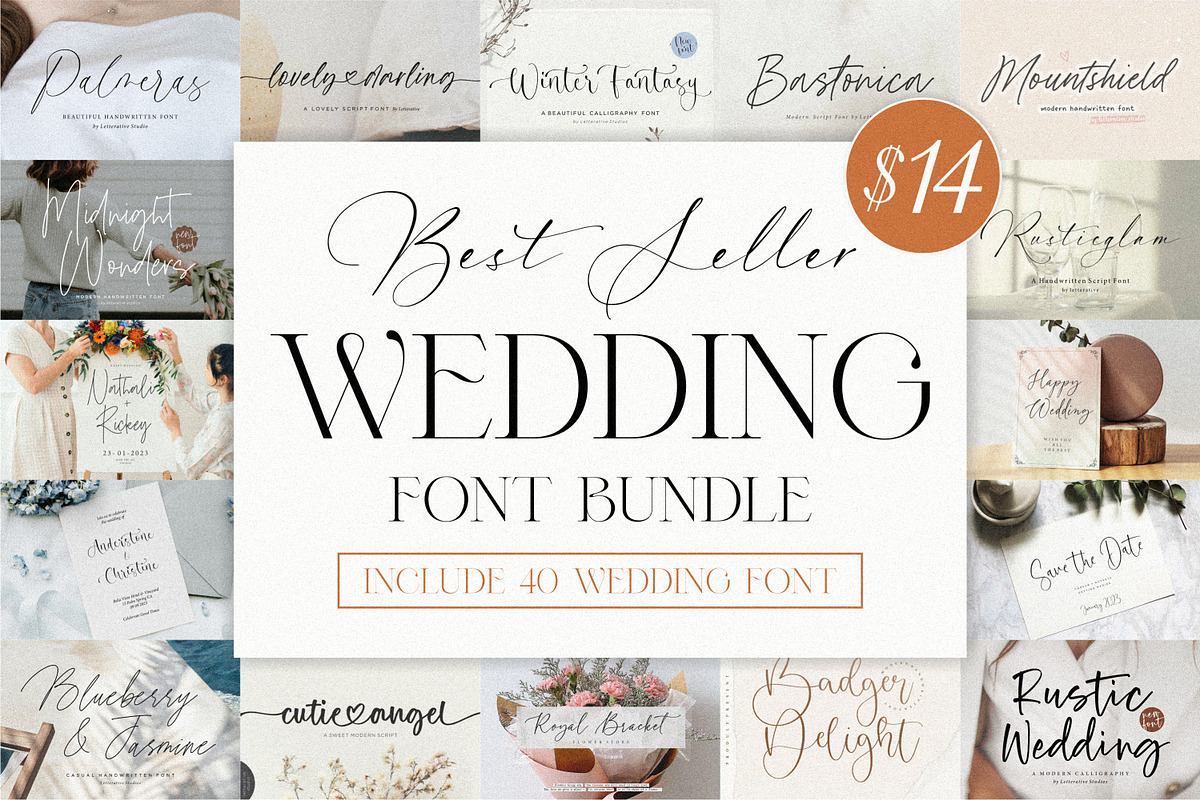
The Wedding Font Bundle Free Download is a carefully curated collection of elegant and romantic fonts designed specifically for wedding stationery, invitations, and other romantic projects. Featuring a variety of script, serif, and sans-serif fonts, this bundle offers a diverse selection of typefaces perfect for creating beautiful, personalized designs.
Whether you're designing invitations, save-the-dates, logos, or custom branding for weddings and events, The Wedding Font Bundle provides everything you need to create elegant and timeless typography. The fonts included in this bundle combine classic sophistication with modern flair, making them ideal for both traditional and contemporary wedding themes.